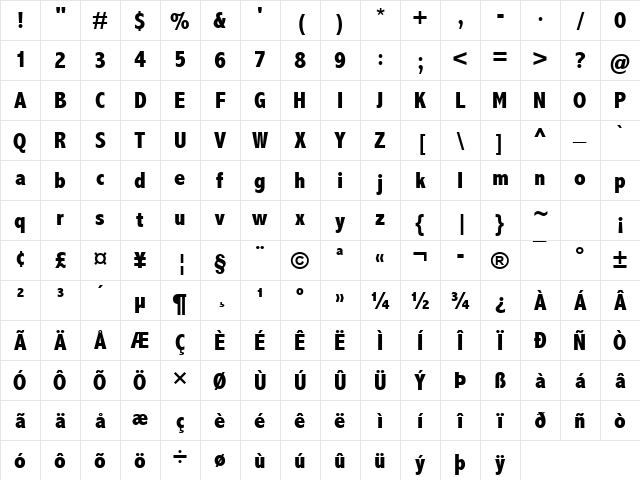
Complete Abadi MT Condensed Extra Bold Regular glyph index. Displaying only characters natively supported by Abadi MT Condensed Extra Bold Regular font.
Abadi MT Condensed Extra Bold is a composed and adaptable typeface that performs quietly and consistently across a wide range of design contexts. Its bold stroke weight gives it real presence on the page. Its narrow stance lets it pack a punch even in space-constrained designs.